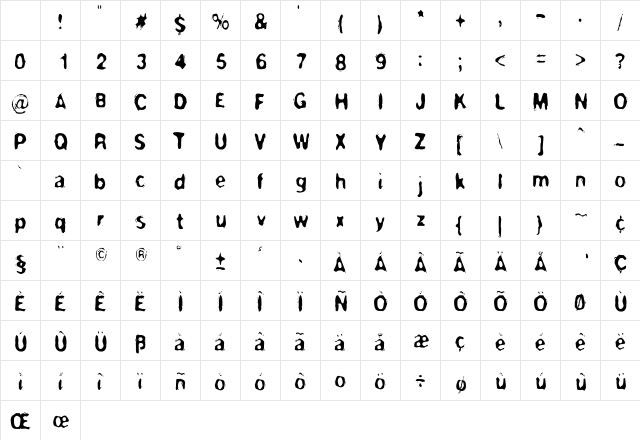
Complete BlueVibes Medium glyph index. Displaying only characters natively supported by BlueVibes Medium font.
BlueVibes is a composed and adaptable typeface that performs quietly and consistently across a wide range of design contexts.